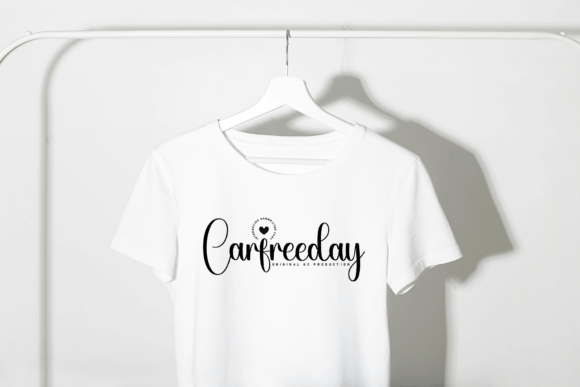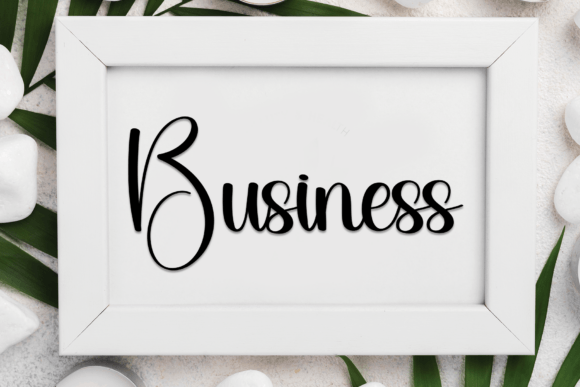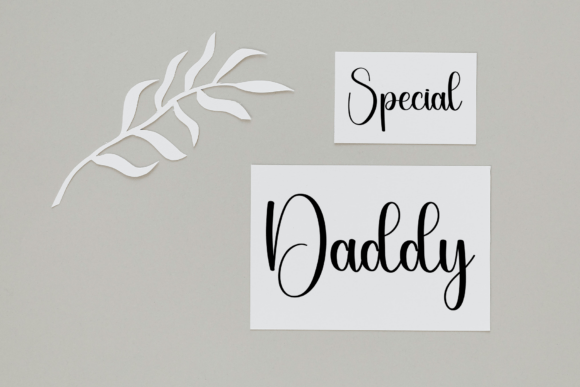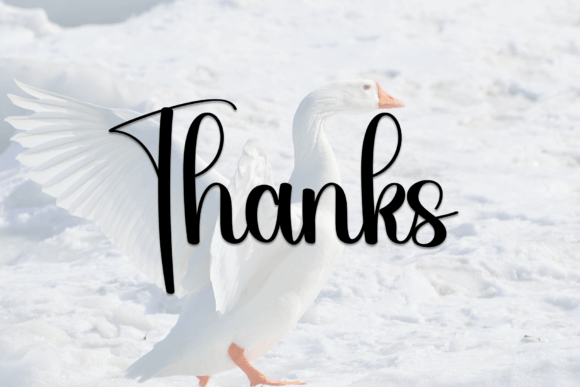
Introduction to Saturday Valentine Font
There’s something special about the first spark of creativity that hits you on a lazy Saturday morning. You’re sipping your coffee, scrolling through design inspiration, and suddenly, you stumble upon the perfect font – the Saturday Valentine Font. Its playful, handwritten style is like a breath of fresh air, instantly elevating your design project from ordinary to extraordinary.
As a designer, you know the value of a high-quality font that can make your work stand out. The Saturday Valentine Font is more than just a pretty face; it’s a design resource that offers versatility and sophistication. Whether you’re working on a wedding invitation, a fashion campaign, or a marketing promotion, this font is sure to bring a touch of luxury and elegance to your creative project.
Key Features of Saturday Valentine Font
- Unique, hand-drawn design perfect for creative projects and romantic themes.
- Features a bold, cursive style with a mix of elegant and playful elements, making it suitable for Valentine’s Day and other romantic occasions.
- Size: The font family includes multiple weights and styles, ranging from light to bold, allowing for versatile usage in various design projects.
Honest Review: Saturday Valentine Font
I recently had the chance to work with the Saturday Valentine Font, and I must say it’s a lovely addition to any design project. ✨ The font’s playful, cursive script is perfect for adding a touch of whimsy to your work.
One of the things that stands out about the Saturday Valentine Font is its high quality. It’s a beautifully crafted font that’s perfect for use in creative projects, from wedding invitations to children’s book illustrations. Plus, it’s a free download, making it a valuable resource for designers on a budget.
Here are a few things I liked about the font:
- Beautiful, cursive script that’s perfect for adding a touch of whimsy to your work
- High quality and detailed design
That being said, there are a few limitations to the font. ⚠️ It’s not suitable for use in large block text, as the script can become difficult to read at larger sizes. Additionally, the font may not be compatible with all design software.
Overall, I’m really impressed with the Saturday Valentine Font. It’s a beautiful, high-quality font that’s perfect for use in creative projects. If you’re looking for a unique and eye-catching font for your next design project, I highly recommend giving it a try.
Common Use Cases for Saturday Valentine Font
The Saturday Valentine Font is commonly used in Valentine’s Day-themed designs, wedding invitations, and romantic greeting cards. Its high-quality design and transparent background make it a versatile design resource for any creative project.